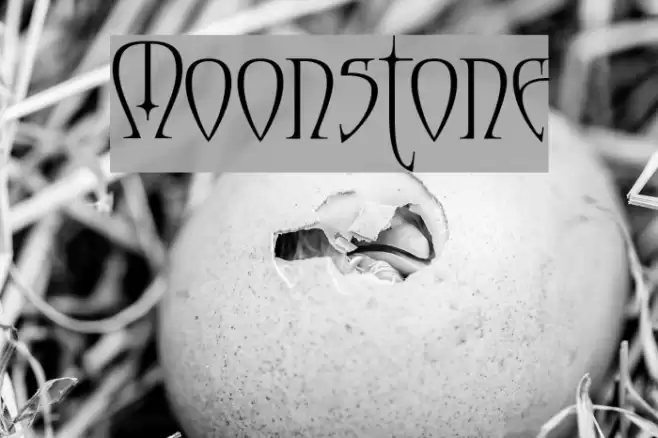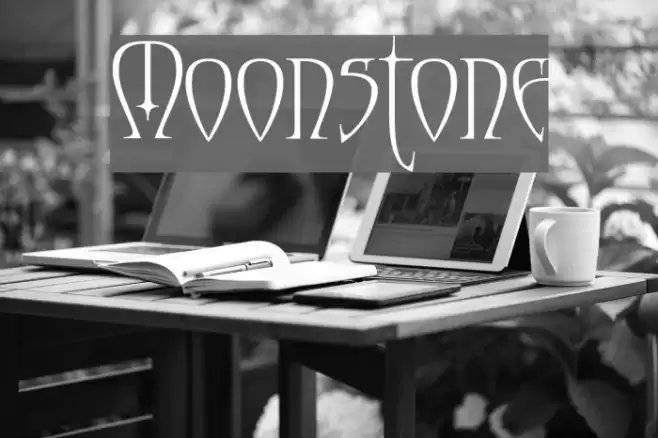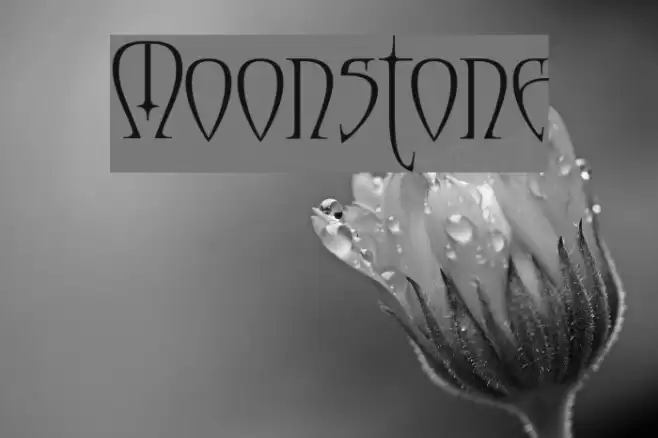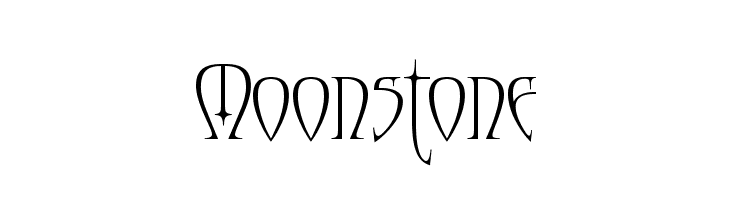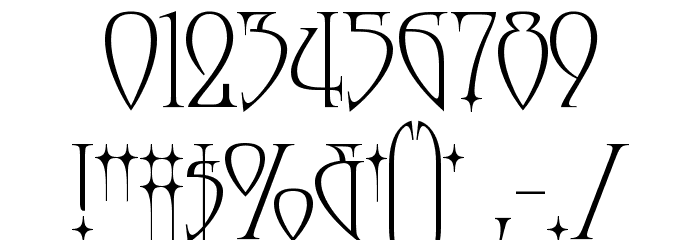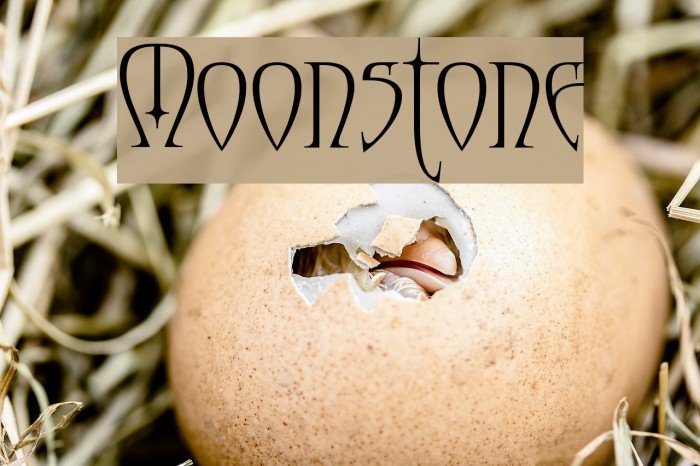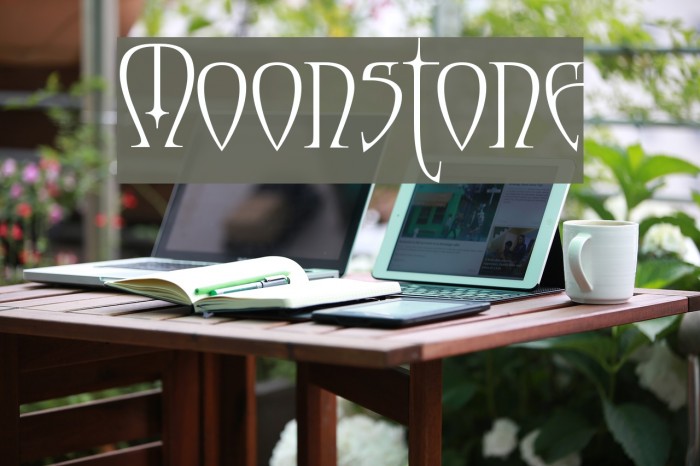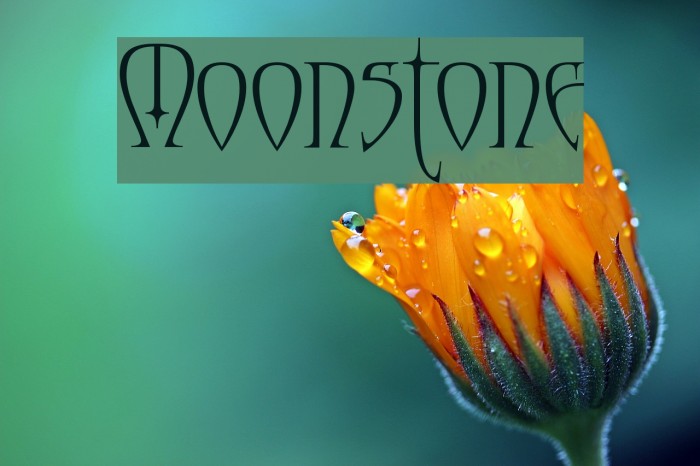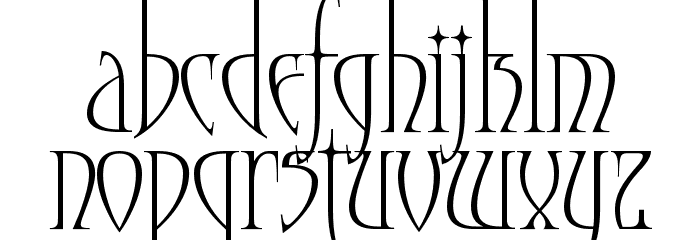
Moonstone Font
Moonstone Description
This font features a unique and artistic design, characterized by its elongated and narrow letterforms. The strokes are thin with sharp, pointed serifs, giving it a mystical and elegant appearance. The uppercase letters have a distinct geometric quality, while the lowercase letters maintain a consistent style with slight curves and flourishes. The numerals are stylized to match the overall aesthetic, and the special characters incorporate decorative elements that enhance the font's visual appeal. This font is ideal for projects that require a touch of fantasy or a gothic-inspired theme.
A mystical and elegant font with elongated, narrow letterforms and sharp serifs from Uncategorized fonts.
- Proposed Projects: Perfect for fantasy book covers, gothic-themed posters, or mystical branding projects.
- Overall Style: Mystical, Gothic